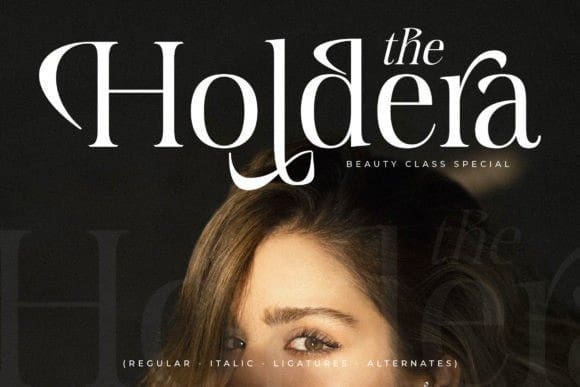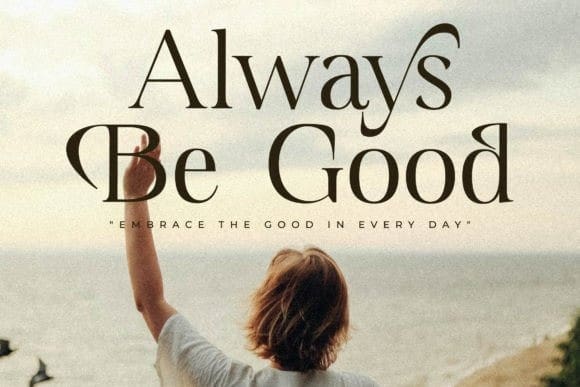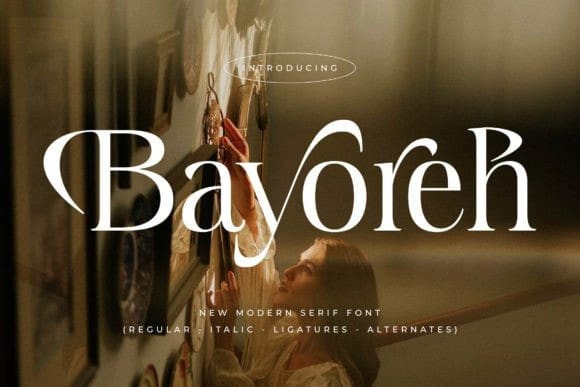
Bayoreh Font
Bayoreh Font is an elegant and bold serif font. Fall in love with its incredibly versatile style and use it to create gorgeous wedding invitations, beautiful stationary art, eye-catching social media posts, and much more!